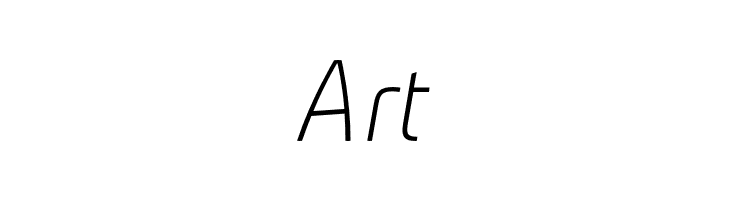
• AbsolutPro-Thin
( Fonts by Ingo Zimmermann - www.ingofonts.com )
A modern, thin sans-serif font with a sleek and minimalist design.
• AbsolutPro-ThinIt
( Fonts by Ingo Zimmermann - www.ingofonts.com )
A sleek, thin, and slightly italicized modern font with low contrast.
• AbsolutProCond-Bold
( Fonts by Ingo Zimmermann - www.ingofonts.com )
A bold, condensed font with a modern and impactful design.
• AbsolutProCond-Book
( Fonts by Ingo Zimmermann - www.ingofonts.com )
A modern, condensed sans-serif font with a sleek and professional appearance.
• AbsolutProCond-Light
( Fonts by Ingo Zimmermann - www.ingofonts.com )
A modern, condensed sans-serif font with a light and airy appearance.
• AbsolutProCond-Medium
( Fonts by Ingo Zimmermann - www.ingofonts.com )
A modern, condensed sans-serif font with bold, uniform strokes.
• AbsolutProCond-Thin
( Fonts by Ingo Zimmermann - www.ingofonts.com )
A sleek, modern, and condensed font with thin strokes and excellent legibility.
• AbsolutRed-Black
A bold, rounded font with a modern and impactful style.
• AbsolutRed-BlackItalic
Bold, italicized font with a strong, modern presence.
• AbsolutRed-Bold
A bold, modern font with rounded edges and consistent stroke width.